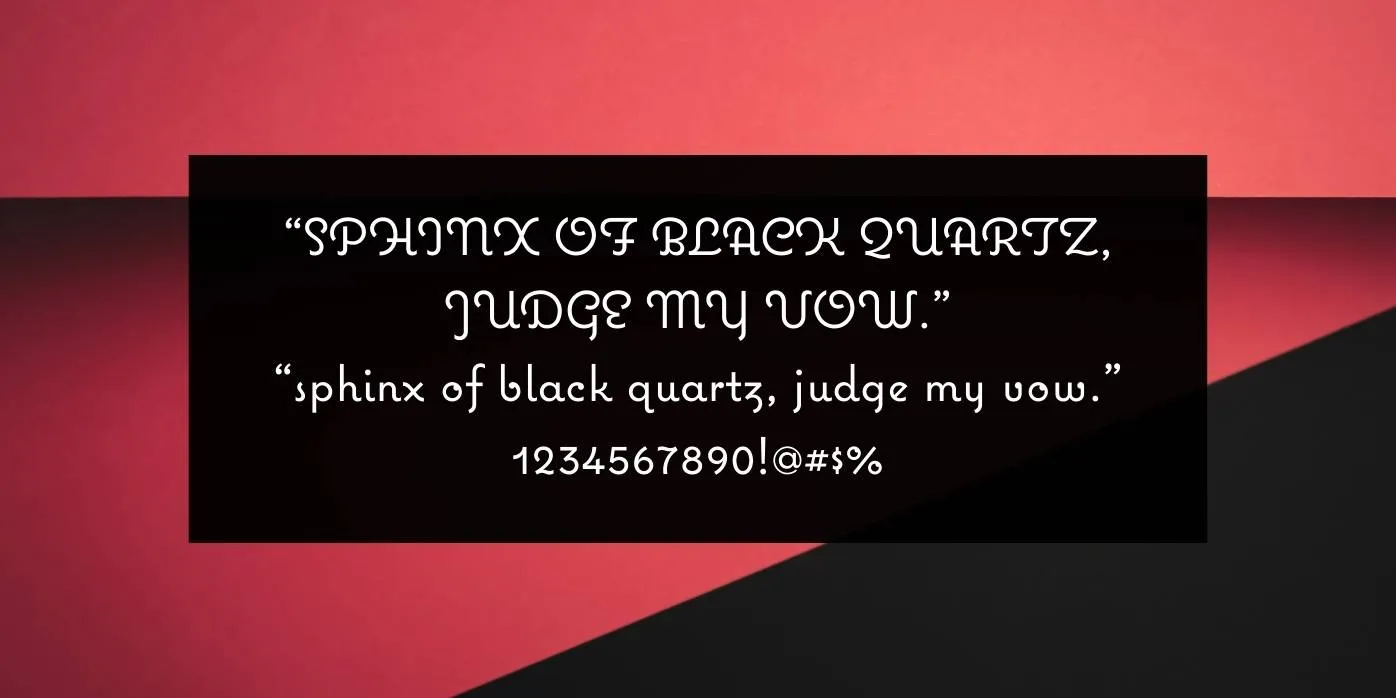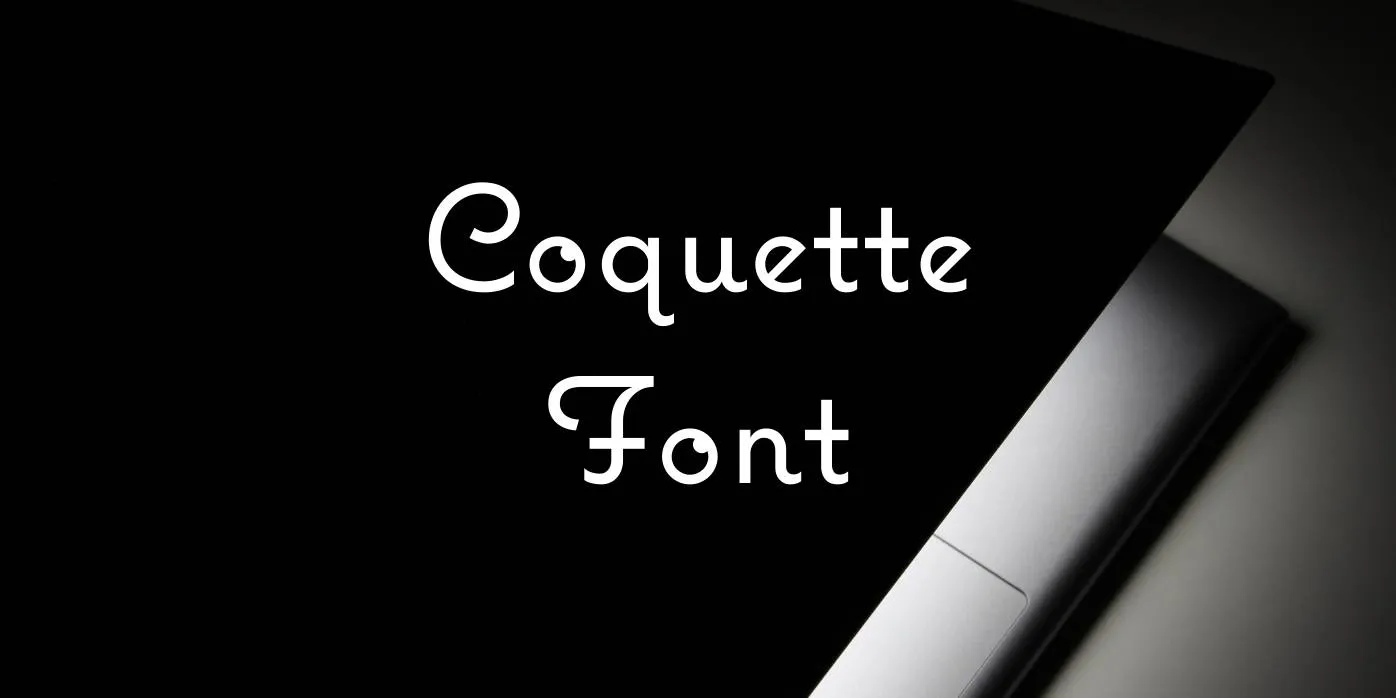
Coquette Font
Coquette Font is a fancy typeface with a fun and youthful vibe. The letters are simple and have playful energy. This Font is a unique font that was created by a very popular graphic designer named Mark Simonson. This Font is available in both regular and bold weights.
It includes support for Latin, Cyrillic, and Greek character sets. This is also largely used in the font industry because of its copy-and-paste function. The glyphs have been designed to work well together, providing a natural and fluid reading experience. If you don’t want to download this typeface then you can also generate this font via a font generator tool that converts or transform your simple text into your given texture.